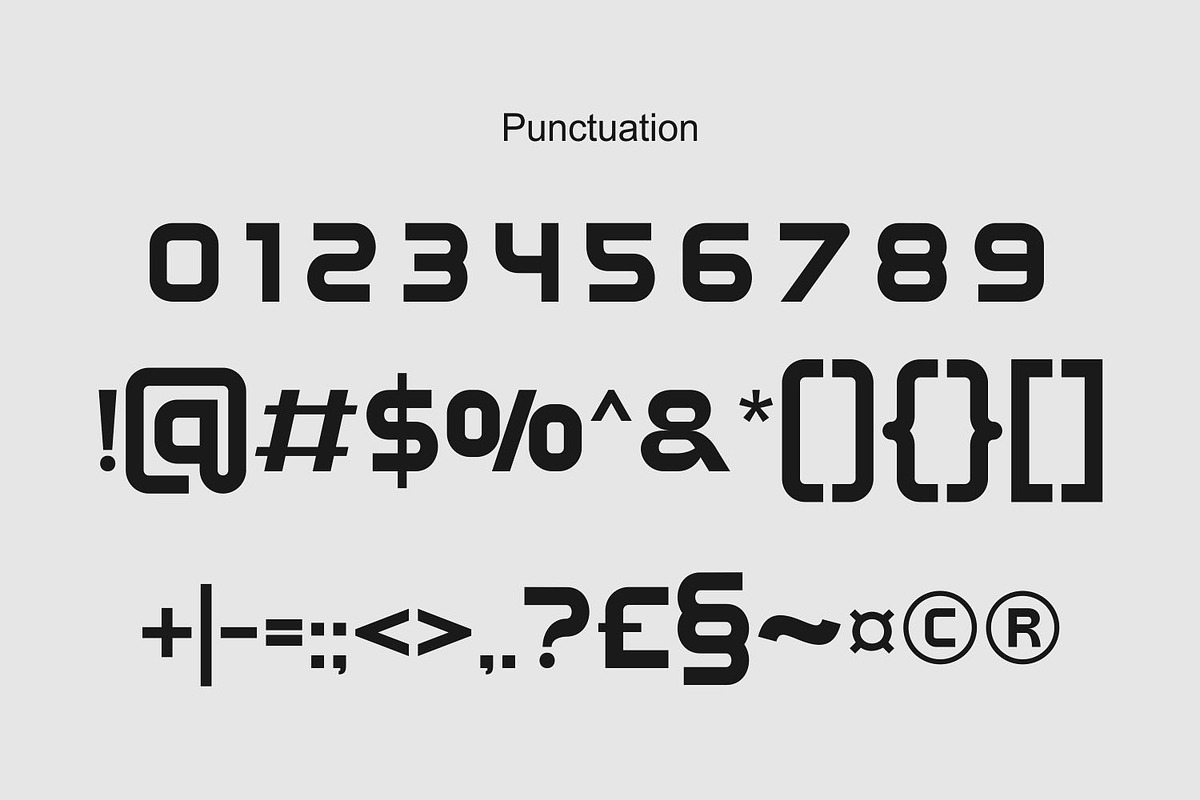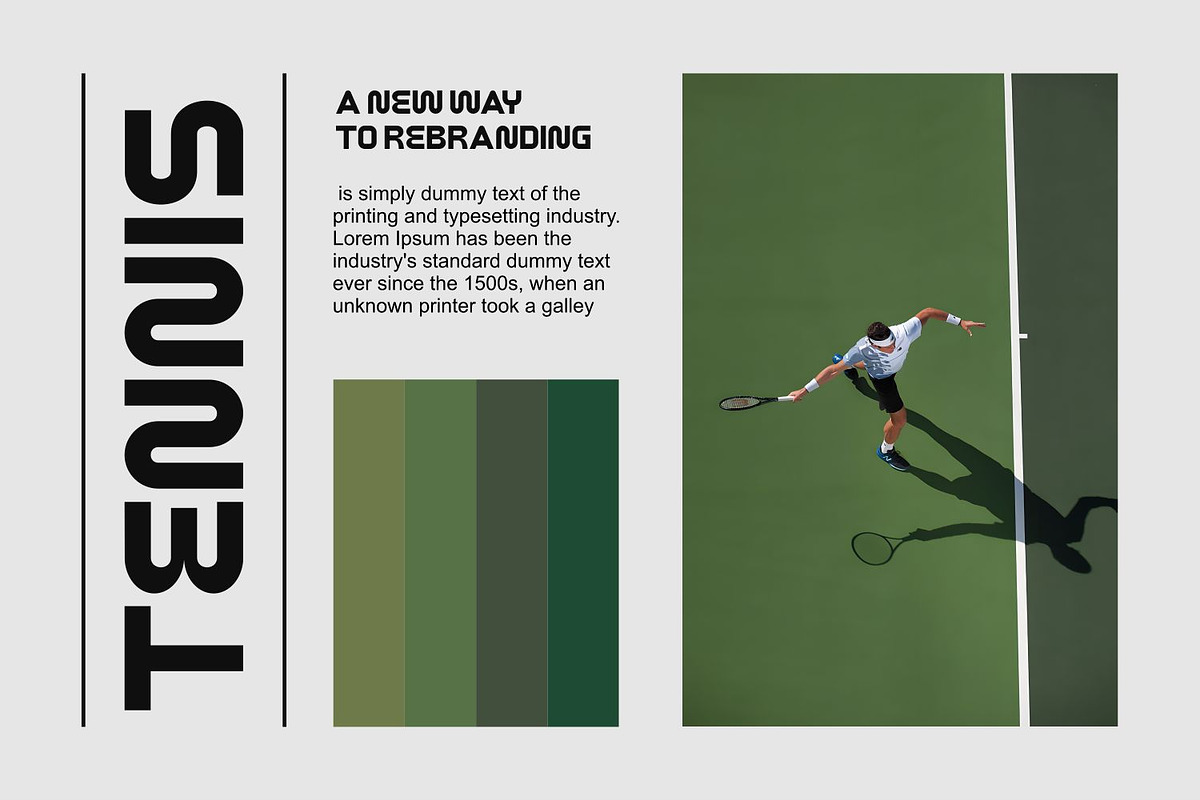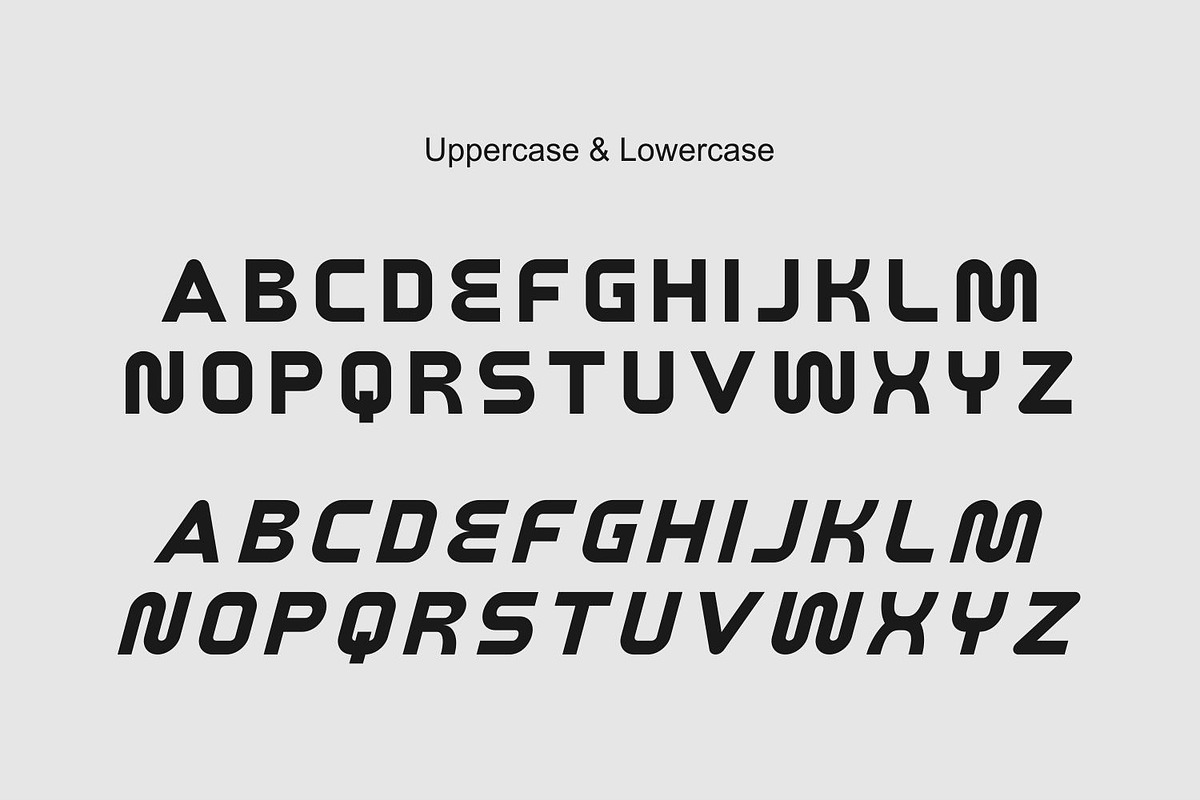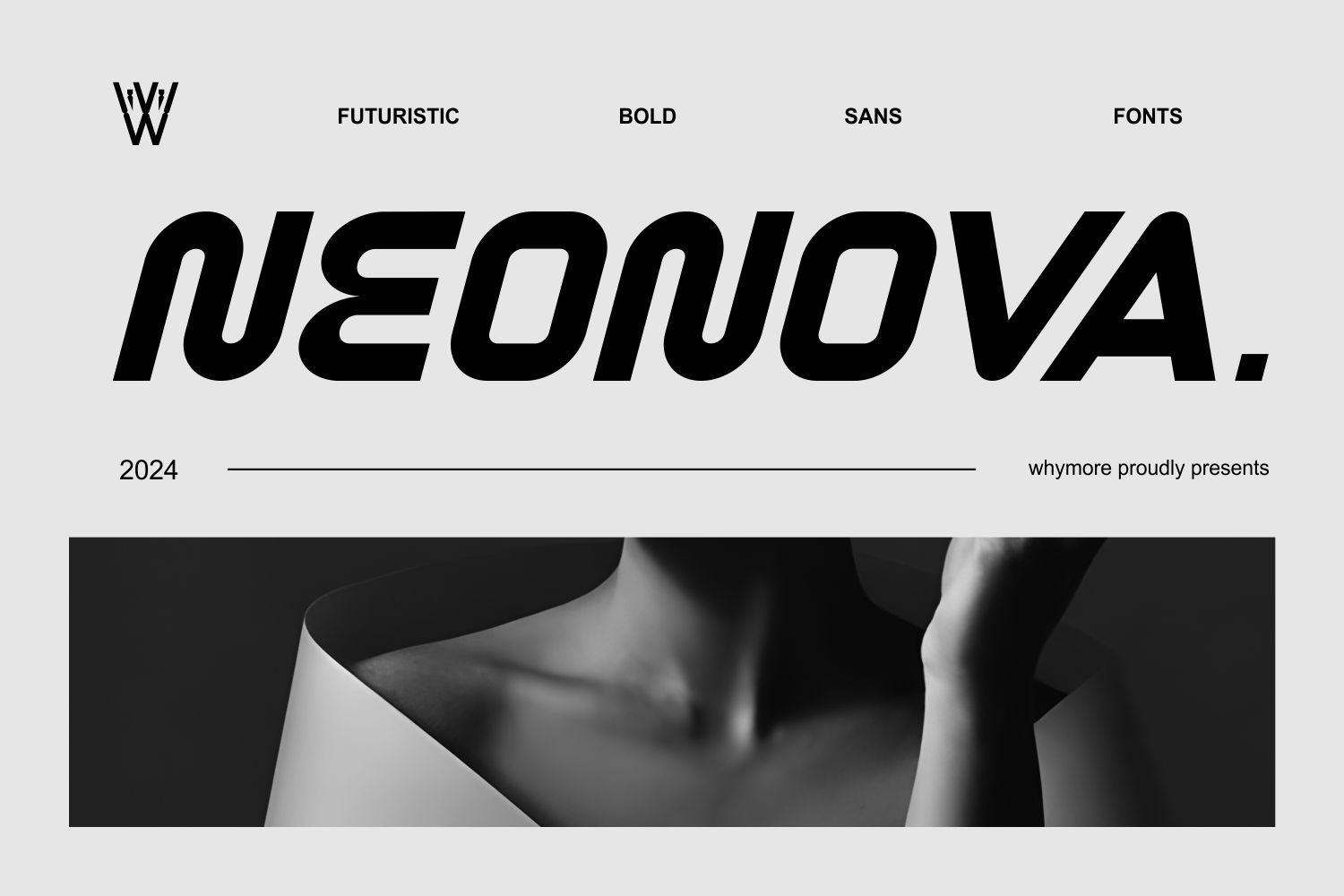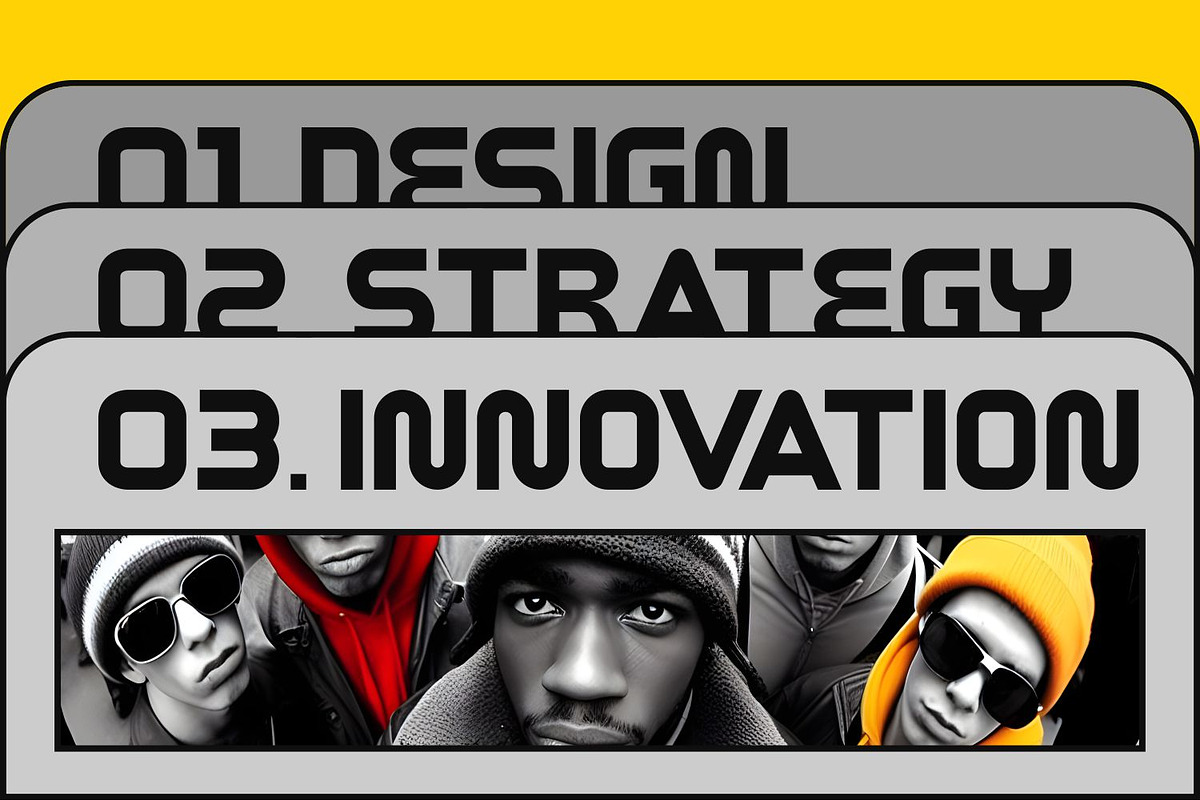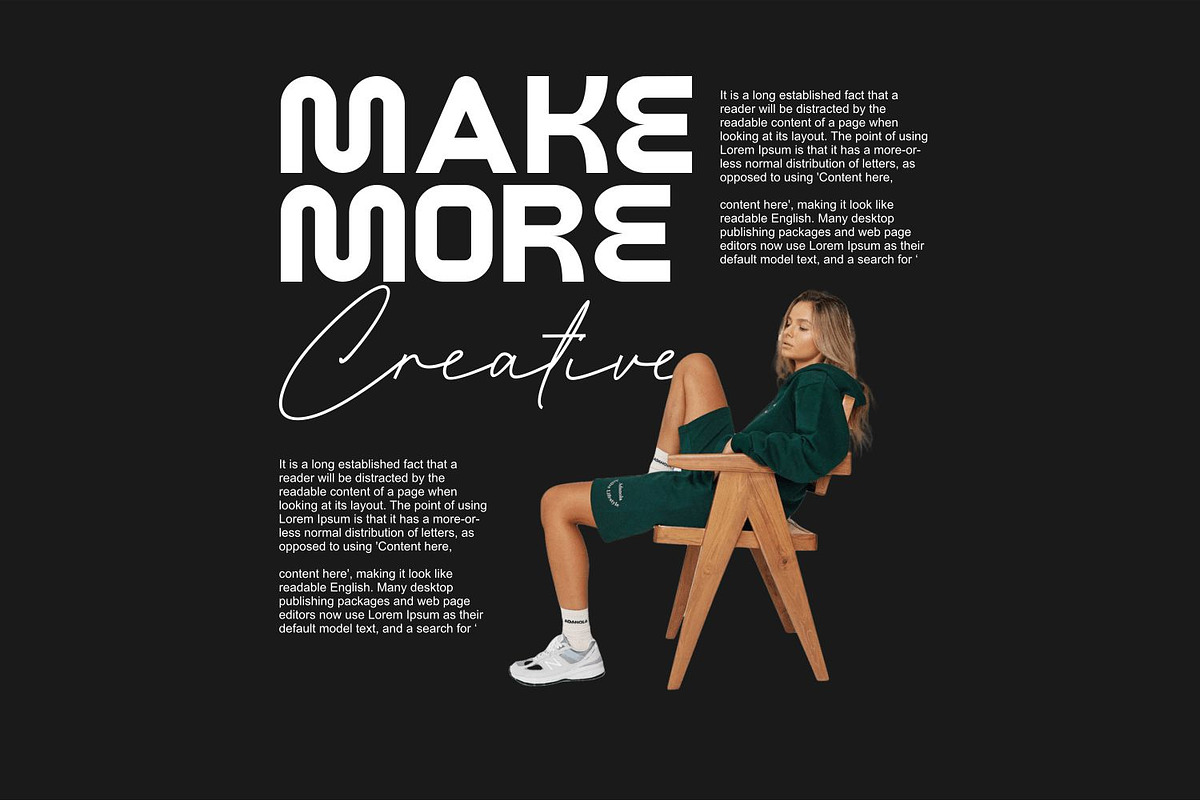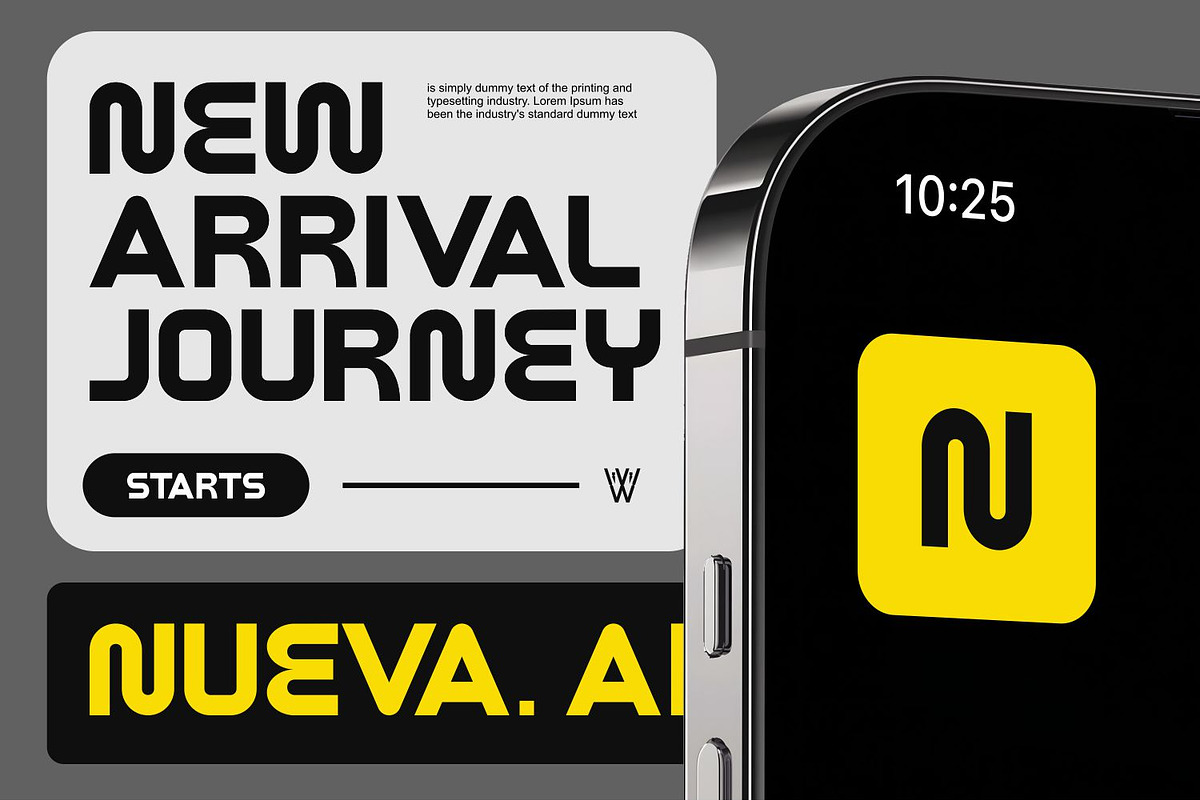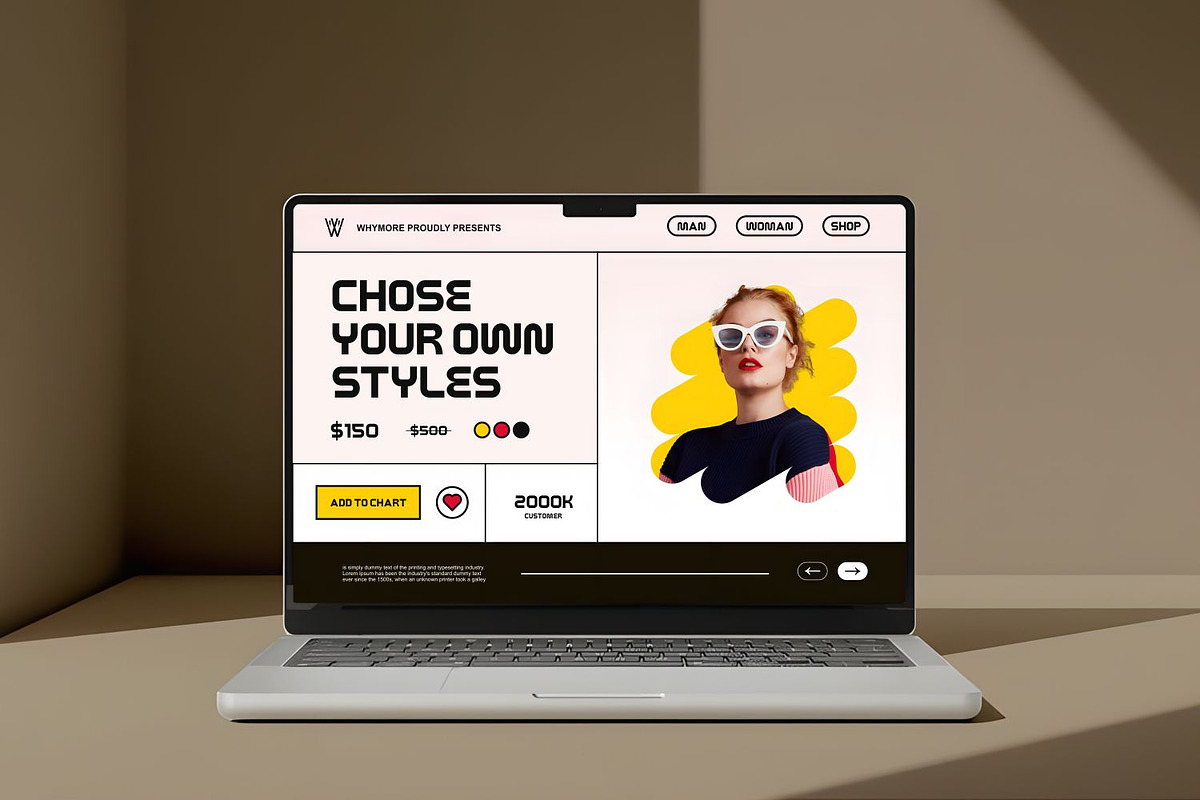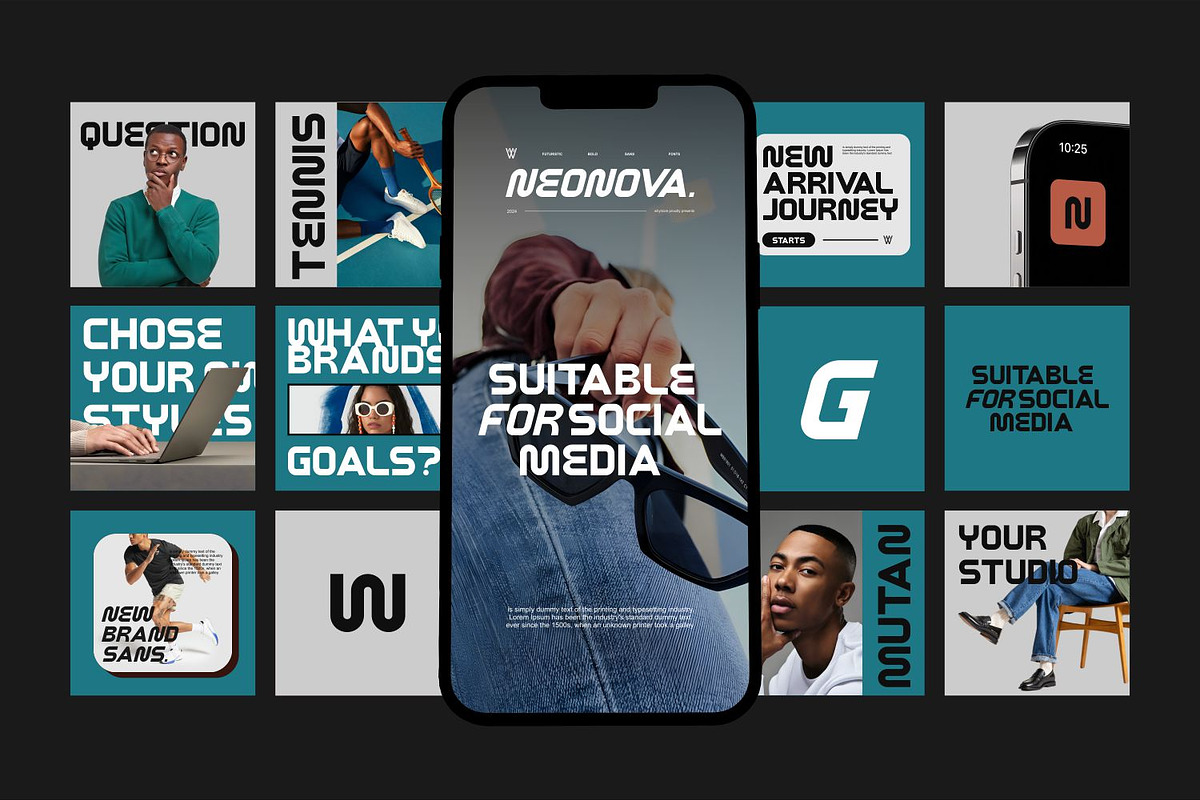
NEONOVA Profesional Geometric Font
NEONOVA Futuristic Geometric Condensed Font for Professional Design
Elevate Your Design with NEONOVA – A Visionary Typeface for the Future
In a world where design is more than just visuals, NEONOVA emerges as a statement—crafted for designers who push boundaries, create impact, and embrace the boldness of the future. Inspired by the sleek minimalism of modern technology and the nostalgic charm of Y2K aesthetics, NEONOVA combines futuristic precision with geometric elegance, making it the go-to font for professionals seeking innovation and versatility.
Designed for Creators, by Creators
Whether you're a UI/UX designer, branding expert, motion graphics artist, or digital creator, NEONOVA adapts seamlessly to your vision. Its condensed letterforms maximize readability while maintaining a unique personality, ensuring bold, professional, and high-impact visuals across multiple platforms.
Why Designers Love NEONOVA:
👉 Futuristic & Geometric: A perfect fusion of modern aesthetics and functional design. 👉 Versatile & Adaptive: Ideal for tech startups, gaming interfaces, futuristic branding, and editorial layouts. 👉 Professional & Bold: A condensed form factor that ensures high readability in both digital and print media. 👉 Y2K & Neo-Brutalist Ready: A nostalgic nod to retro-futurism with a contemporary twist. 👉 Compatible with Top Design Software: Works flawlessly in Adobe Photoshop, Illustrator, After Effects, Figma, Procreate, and Canva.
Crafted for Impact-Driven Projects
👉 Tech & Gaming Branding – Perfect for futuristic UI/UX, esports, and digital experiences. 👉 Startup & Corporate Identity – A strong and refined font for businesses looking to stand out. 👉 Motion Graphics & Social Media – Designed for dynamic visuals and immersive storytelling. 👉 Editorial & Web Typography – Sharp, professional, and highly legible even in compact layouts.